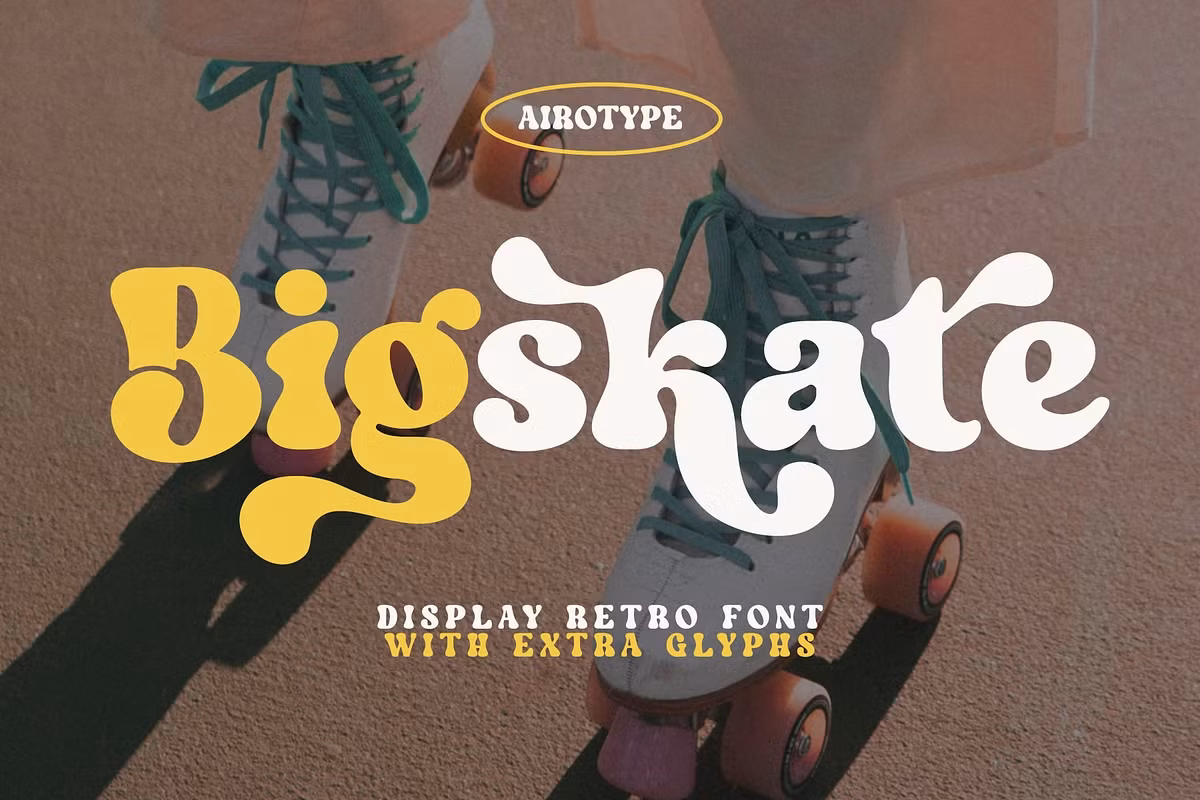
The Bigskate - Vintage Retro Font Free Download brings a bold and nostalgic vibe to your designs, channeling the energy of 70s surf culture, retro signage, and old-school advertising. With its chunky letterforms and handcrafted feel, Bigskate is perfect for t-shirt designs, posters, logos, skate brands, and any creative work that needs a throwback punch with a modern twist.
This font stands out with its high-impact look and vintage character, making it ideal for display purposes and attention-grabbing graphics. It includes stylistic alternates, ligatures, and multilingual support to offer flexibility for all your retro-inspired projects.